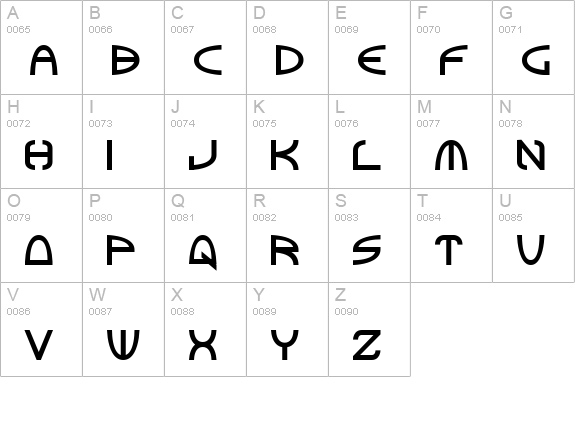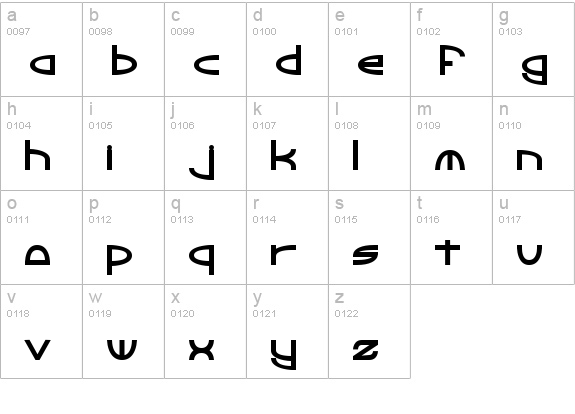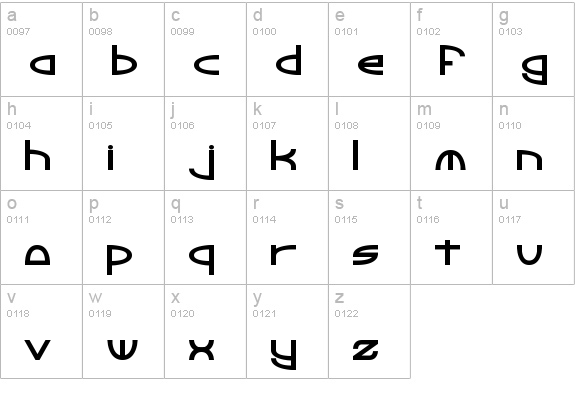
Tinker Round Bold is a strong, high-contrast variant in the Tinker typeface family \xE2\x80\x94 well suited to headlines, attention-grabbing titles, and strong calls-to-action.
Tinker Round Bold font is a delightful and playful typeface that brings a touch of whimsy to any project. Its rounded edges and bold strokes give it a charming and energetic appeal, making it perfect for designs that require a fun and vibrant aesthetic. Whether you're creating a children's book, designing a logo for a creative brand, or crafting eye-catching social media graphics, Tinker Round Bold font will add a cheerful and youthful vibe to your work. Its unique character shapes and attention-grabbing letterforms ensure that your message will stand out in a crowd. And the best part? Tinker Round Bold font is completely free! That's right, this delightful typeface is freely available to download at FontsMarket.com. You can access this font with just a few clicks, and start incorporating it into your designs without any hassle or cost. The versatility of Tinker Round Bold font is truly remarkable. It works equally well in both digital and print mediums, making it a reliable choice for various design projects. Whether you're working on a website, a poster, a brochure, or even a packaging design, Tinker Round Bold font will bring a sense of flair and playfulness that is sure to captivate your audience. With its bold and confident presence, Tinker Round Bold font is a versatile and engaging typeface that will make your designs come to life. Its free availability on FontsMarket.com makes it an irresistible choice for designers looking to add a touch of fun to their projects. So why wait? Download Tinker Round Bold font today and let your creativity soar!